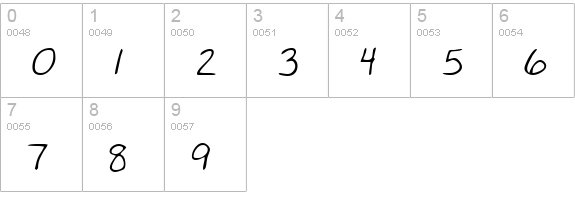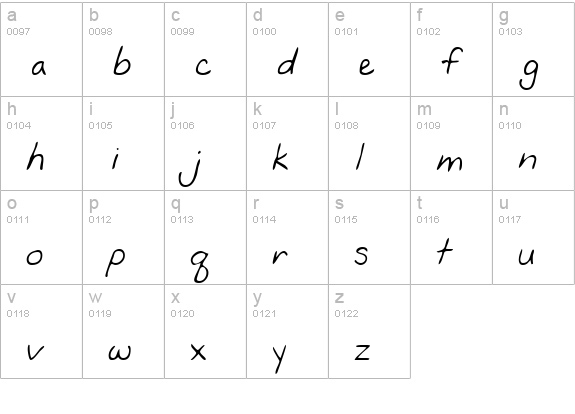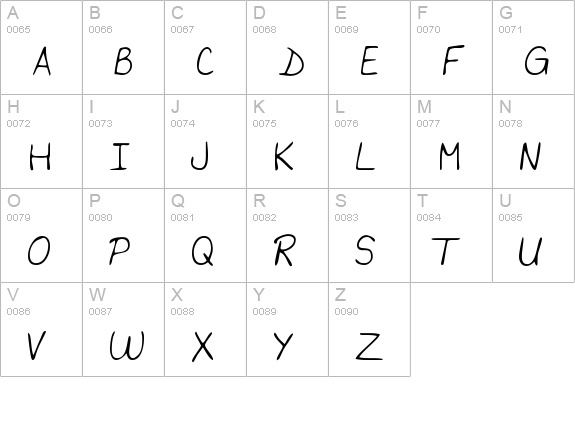
YancysHand Regular Font Details
YancysHand Regular is the standard, neutral variant in the YancysHand typeface family \xE2\x80\x94 well suited to general body text, paragraphs, and standard typographic work.
YancysHand Regular font is a charming and versatile typeface that exudes a sense of creativity and handcrafted elegance. With its flowing and organic strokes, this font is perfect for adding a personal touch to your projects. Whether you're designing greeting cards, invitations, logos, or branding materials, YancysHand Regular is sure to make your text stand out. The best part? YancysHand Regular font is available for free download at FontsMarket.com. This means you can easily access this beautiful font and use it in your designs without breaking the bank. Don't miss out on the opportunity to enhance your creations with the unique and stylish YancysHand Regular font. Download it today and let your creativity shine!